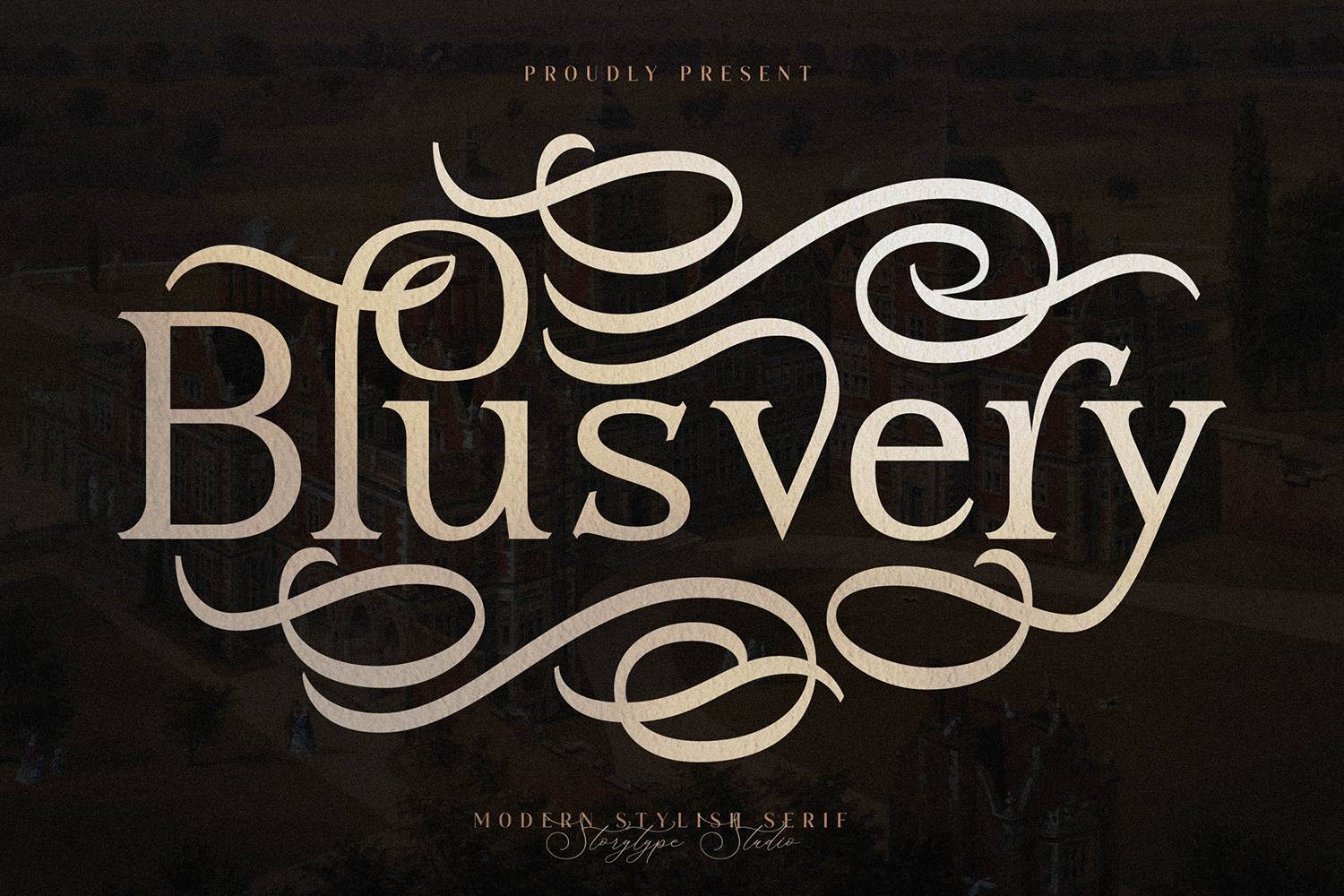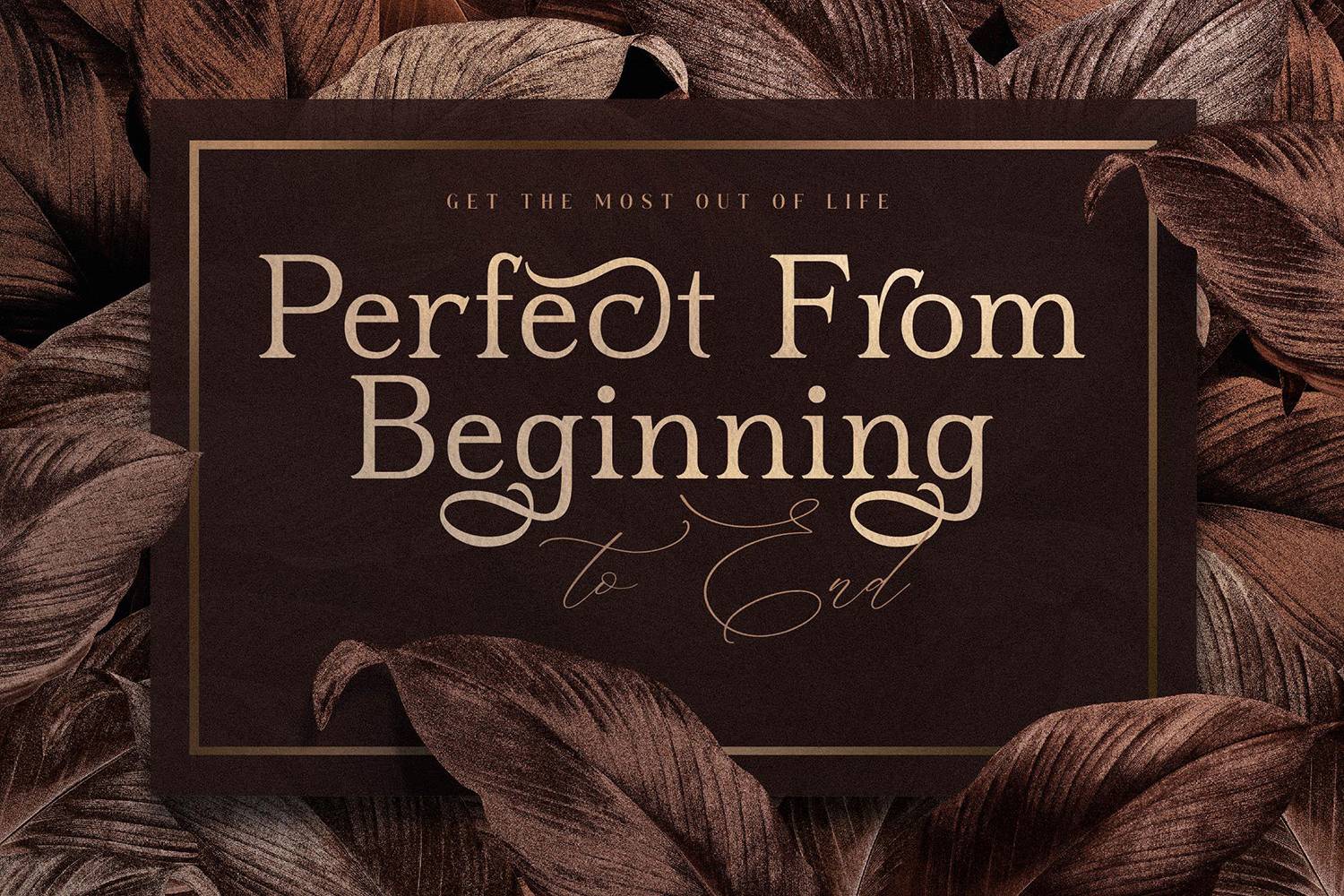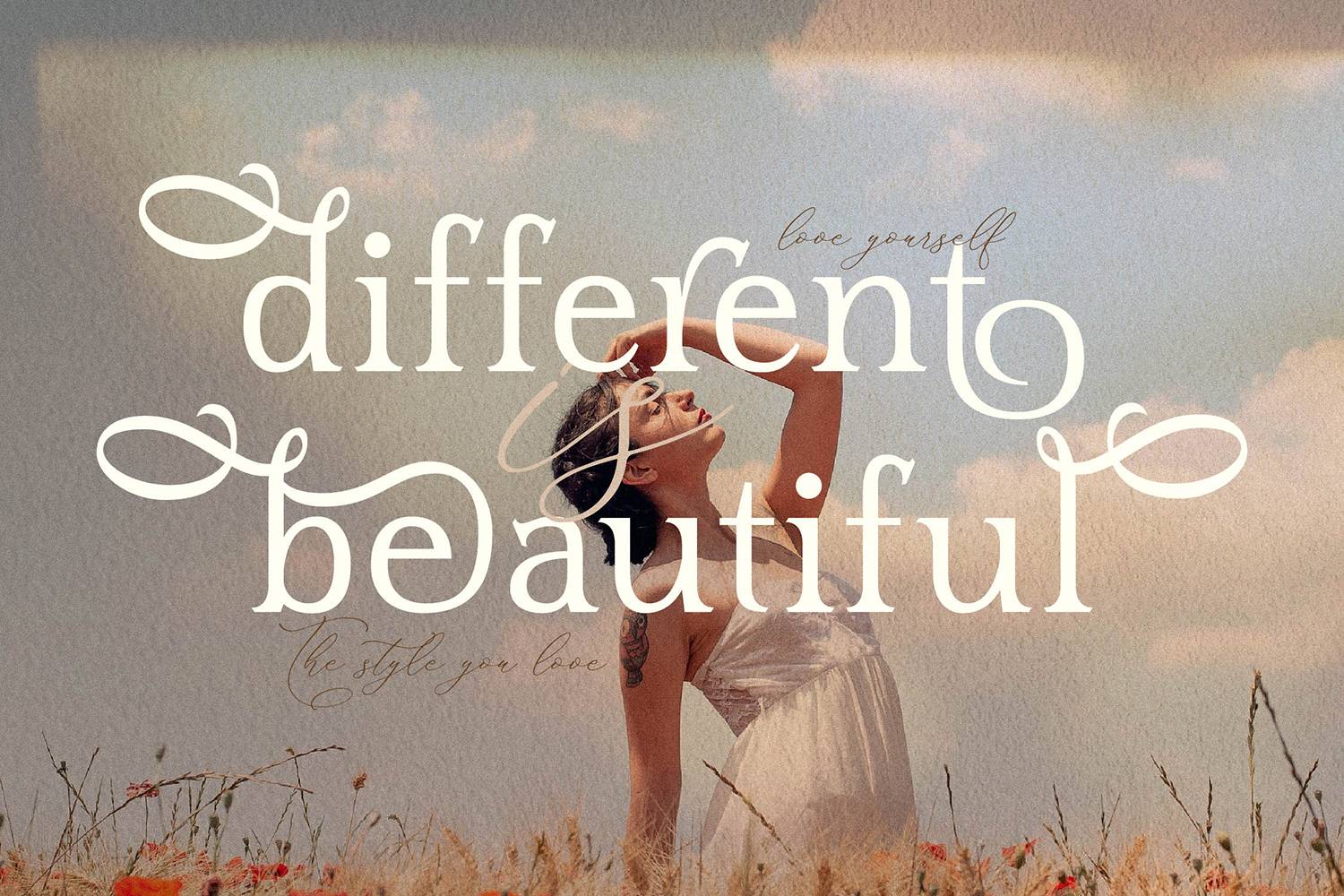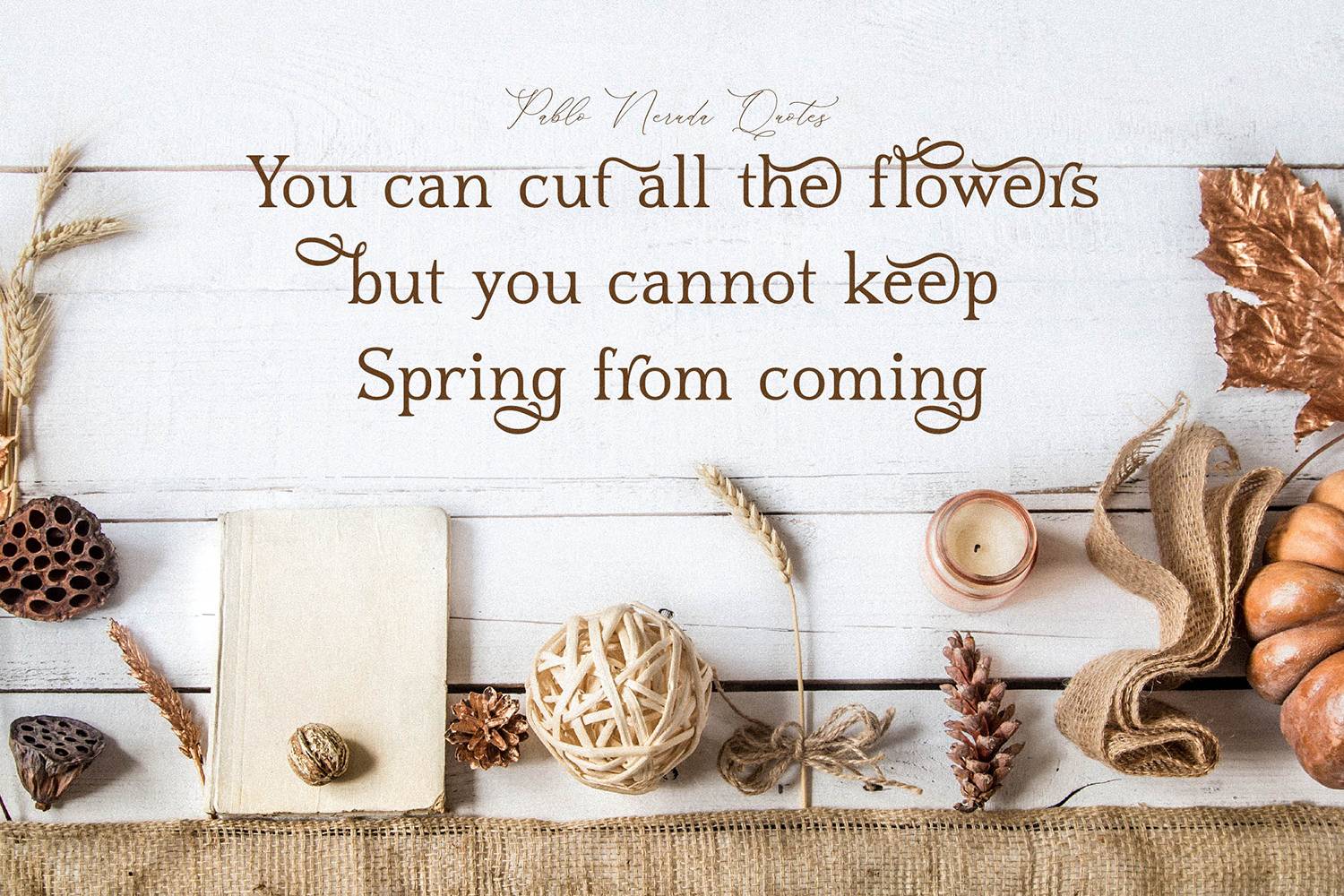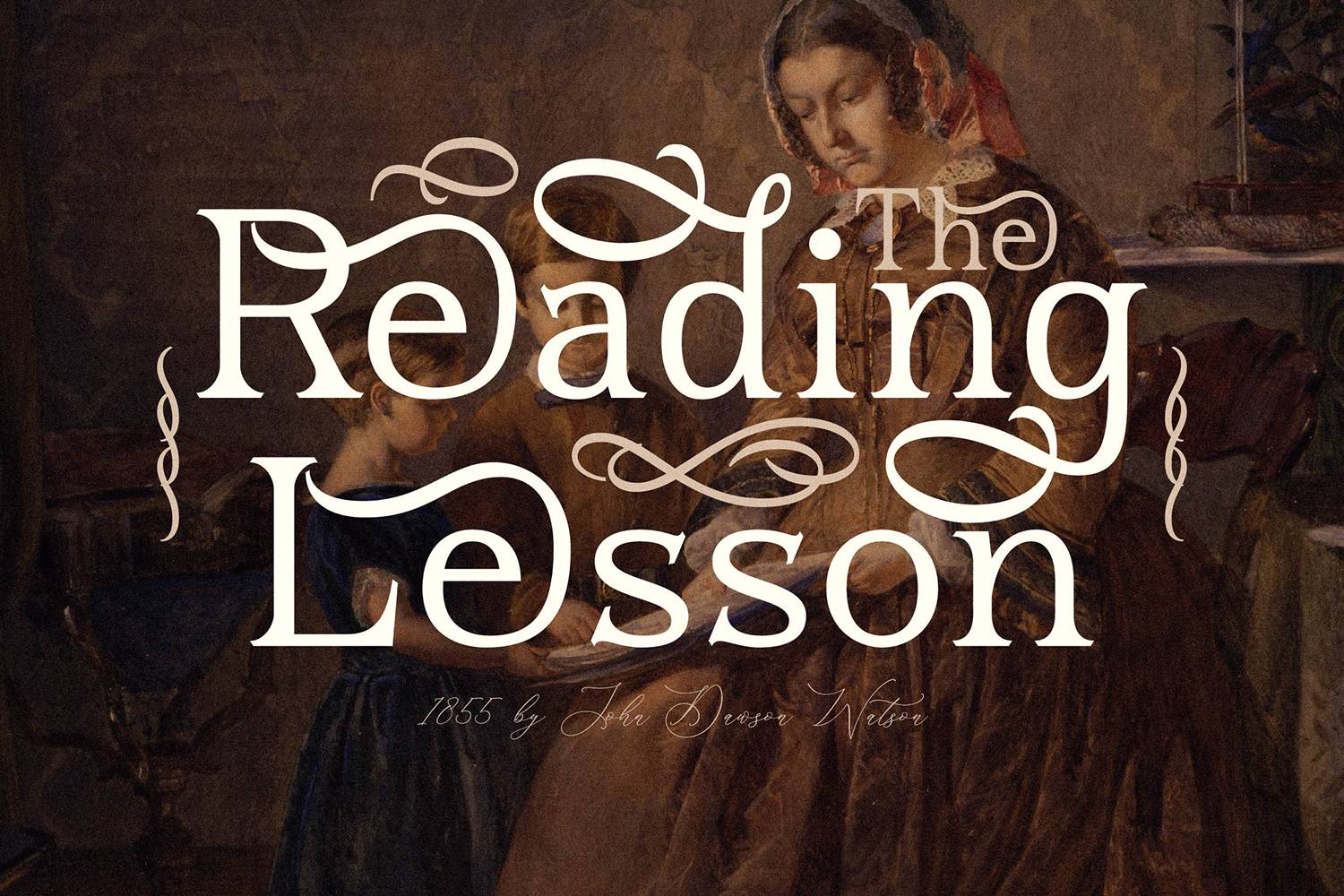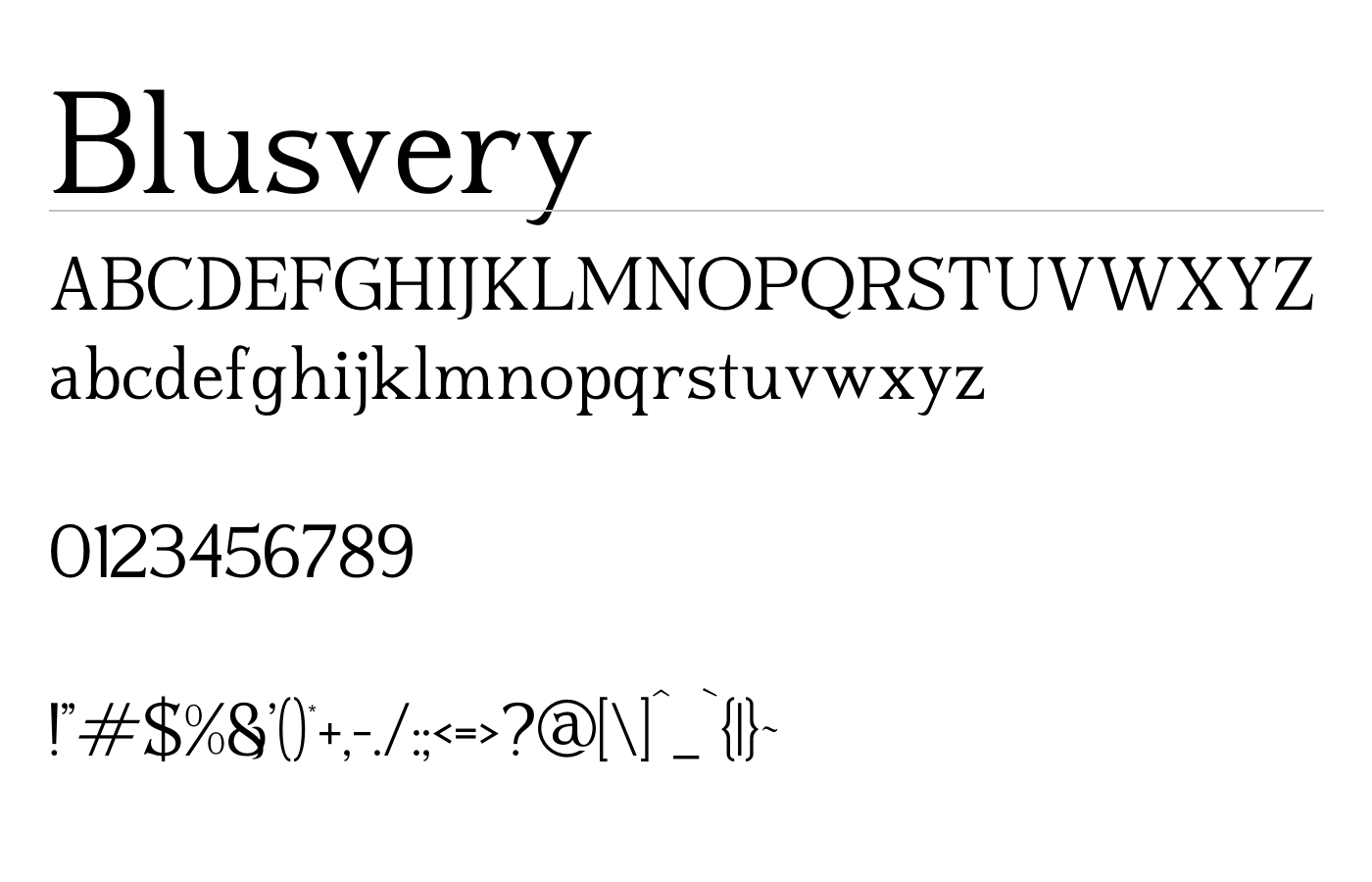
Blusvery is a refined serif font with a classic and elegant feel, featuring high contrast between thick and thin strokes and sharp, bracketed serifs. Its balanced proportions and traditional letterforms make it ideal for sophisticated branding, editorial design, and formal contexts where readability and timeless style are essential. This font works beautifully in headlines or body text, lending a touch of luxury and professionalism.
Blusvery Font
About Blusvery Font